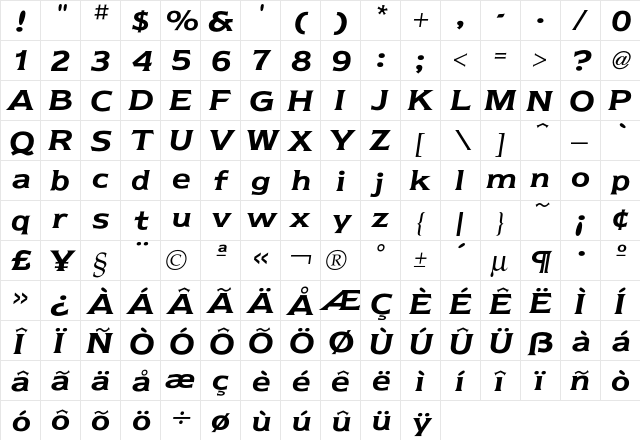
Newtext DemiItalic
Design Context for Newtext Typeface
Newtext offers clean, dependable letterforms without strong stylistic allegiance, making it a practical choice for designers who need flexibility. The slanted form adds forward momentum and visual energy.